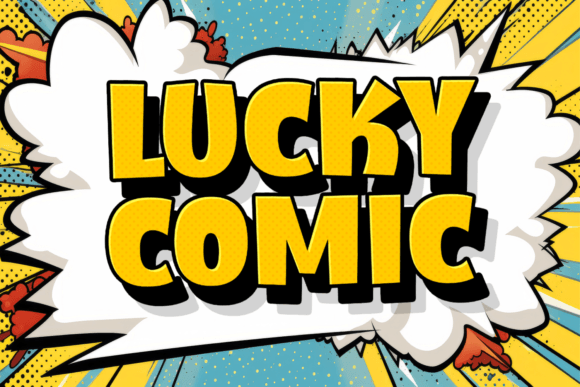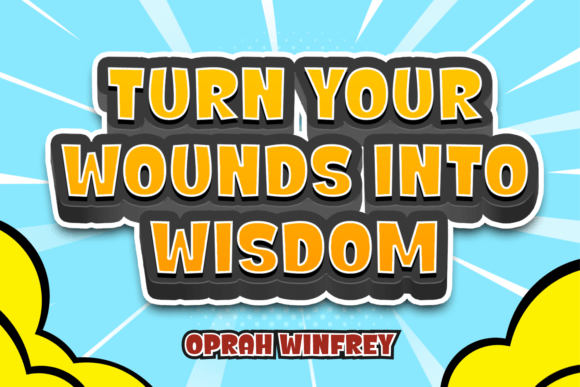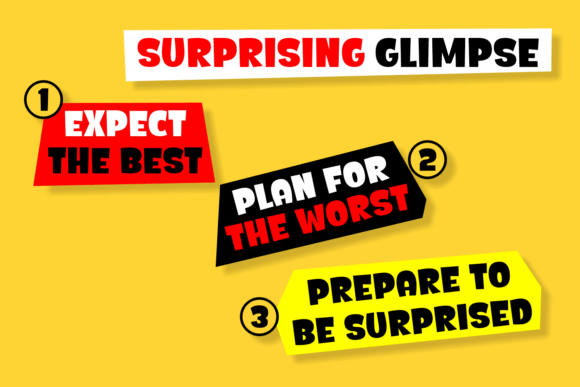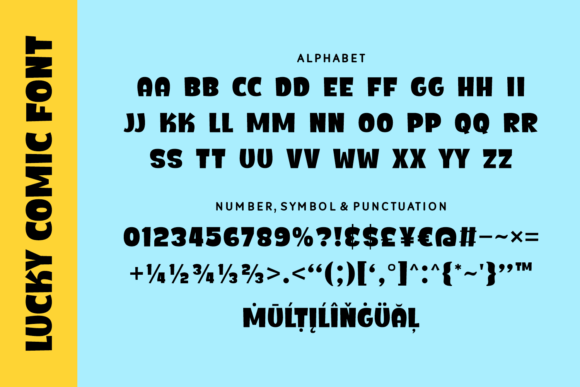
Lucky Comic Font
About the Lucky Comic Font
Step up your design game with Lucky Comic Font, a font that exudes confidence and style. Lucky Comic is a beautiful display comic font. The font’s design is approachable and engaging, with rounded edges and a whimsical feel. It’s ideal for projects that cater to children, such as storybooks, comics, educational materials, and playful branding.
Lucky Comic’s playful energy makes it perfect for headlines, logos, short text blocks on packaging, and posters targeting a younger audience or conveying a lighthearted brand message. Avoid using it for body text or lengthy paragraphs; its whimsical nature can become overwhelming in large quantities.
Pairing Lucky Comic with a clean sans-serif like Open Sans for body copy creates a strong visual hierarchy. For a more sophisticated feel, consider a classic serif such as Garamond for supporting text, balancing its informal charm with a touch of elegance. Alternatively, a geometric sans-serif like Futura can provide a modern counterpoint.
The font projects a friendly, approachable personality, ideal for brands focused on children’s products, entertainment, or playful lifestyle products. Its rounded forms and slightly irregular letterforms contribute to its charming, non-threatening aesthetic.
Lucky Comic Font Usage Examples
Lucky Comic Font Example